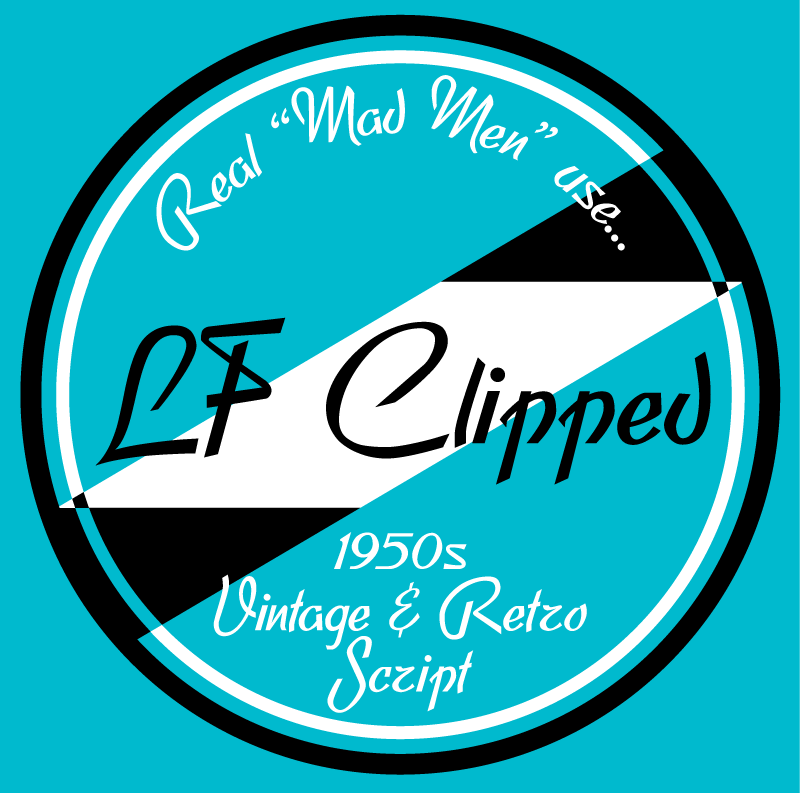
LF Clipped is a (fairly) faithful revival of Clipper by Louis Ferrand, Fonderie Typo. Française 1952. Redolent of an age when smoking was considered a healthy pursuit and a Vodka Martini was a suitable breakfast, LF Clipped is ideal for vintage and retro projects. Served with accents & currency and a twist of lime, shaken, not stirred. LF Clipped is served free for personal use and ‘as is’. If you like LF Clipped, please feel free to make a ‘Vodka Martini’ sized donation to the ‘buy the author a drink fund’ using the donate button. For any commercial use, should you find one for it, a donation (How much is up to you) is mandatory! Cheers! Pil |